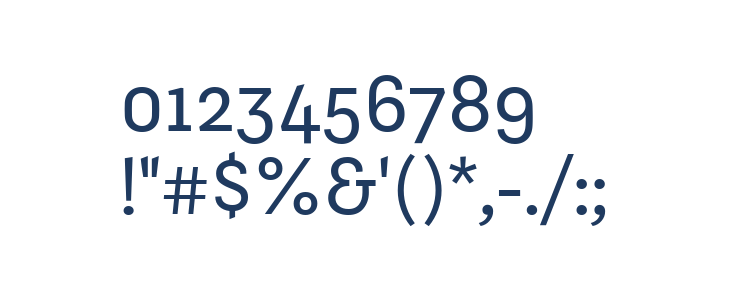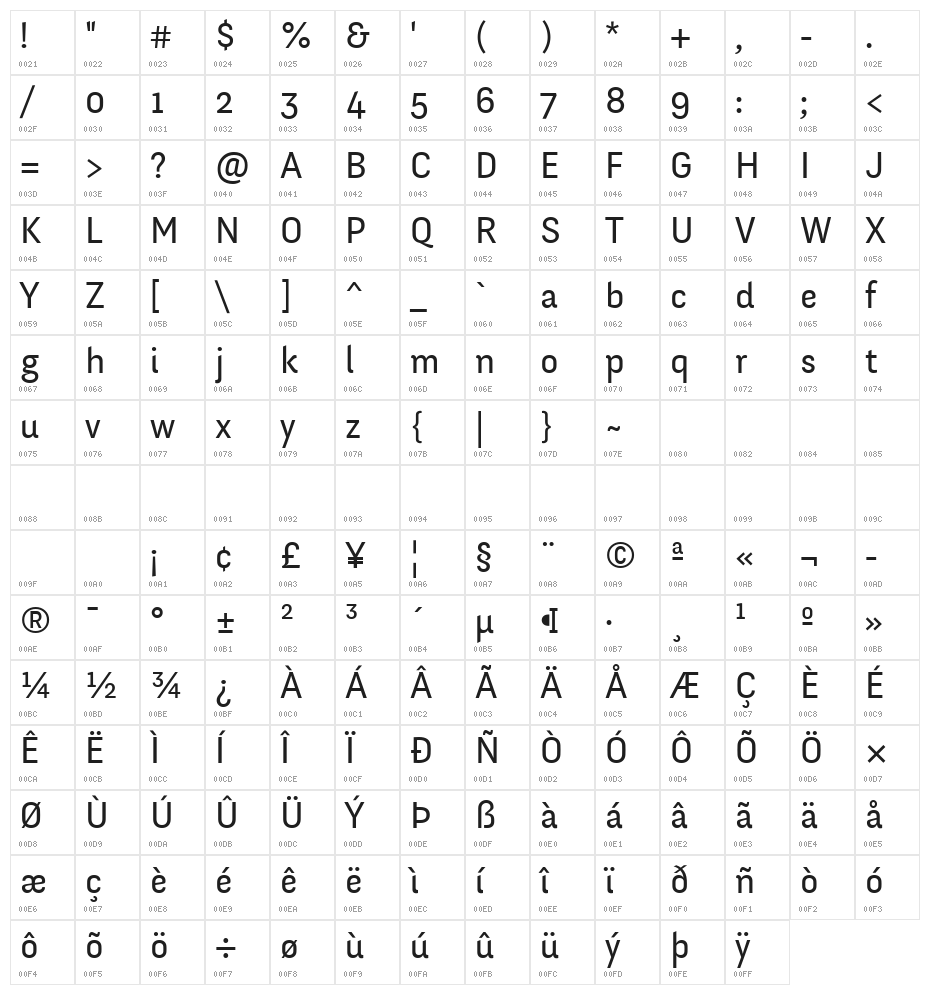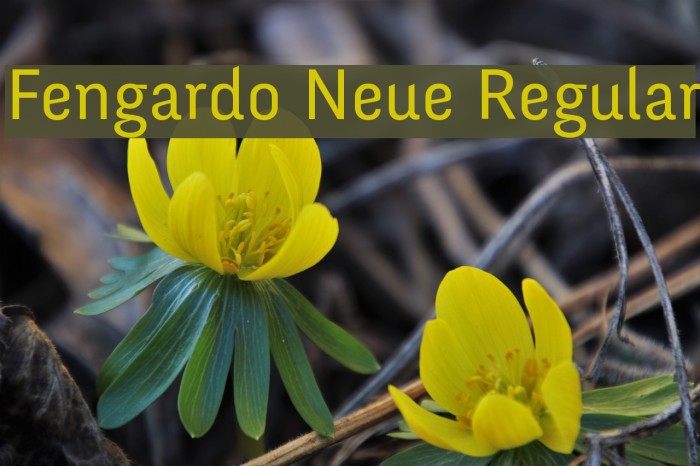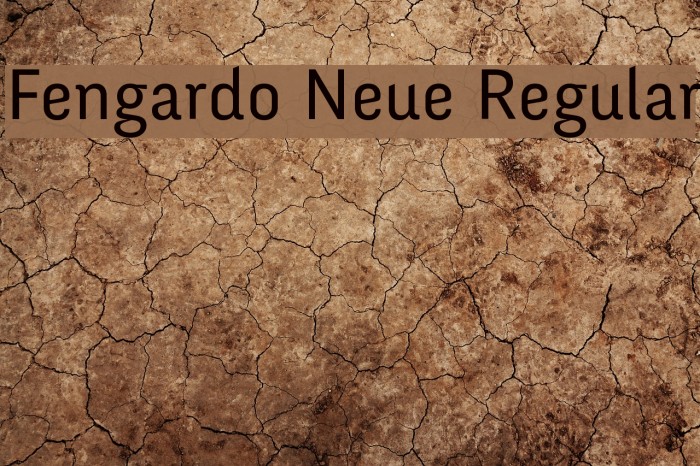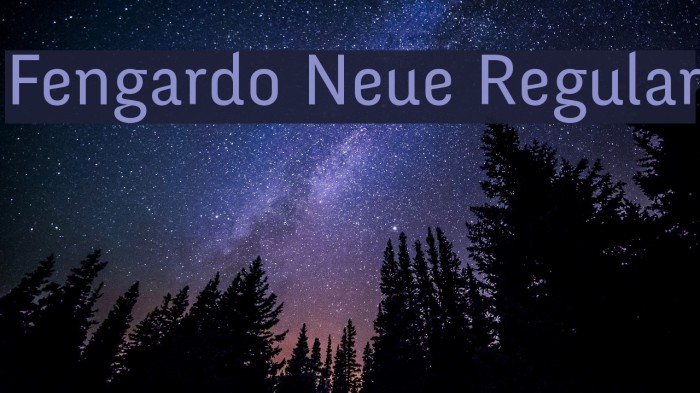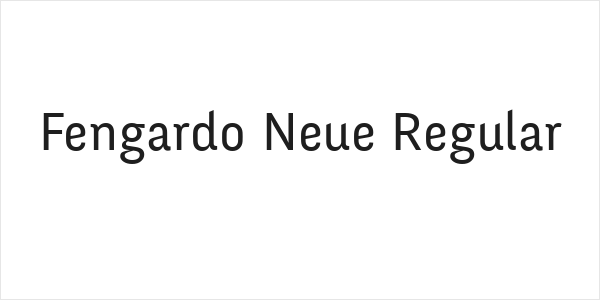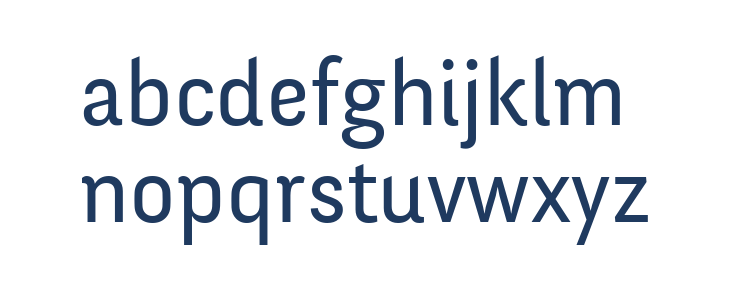
Fengardo Neue Regular Font
Fengardo Neue Regular Description
This typeface presents a clean and modern aesthetic with a geometric structure. The characters are well-balanced, featuring uniform stroke widths that contribute to its readability. The uppercase letters are bold and assertive, while the lowercase letters maintain a friendly and approachable feel. The numerals are clear and distinct, making them suitable for various applications. Special characters are designed with precision, ensuring consistency across the font. Its simplicity and clarity make it versatile for both digital and print media.
| Proposed Projects | Ideal for branding, editorial design, web design, and advertising due to its clarity and modern appeal. |